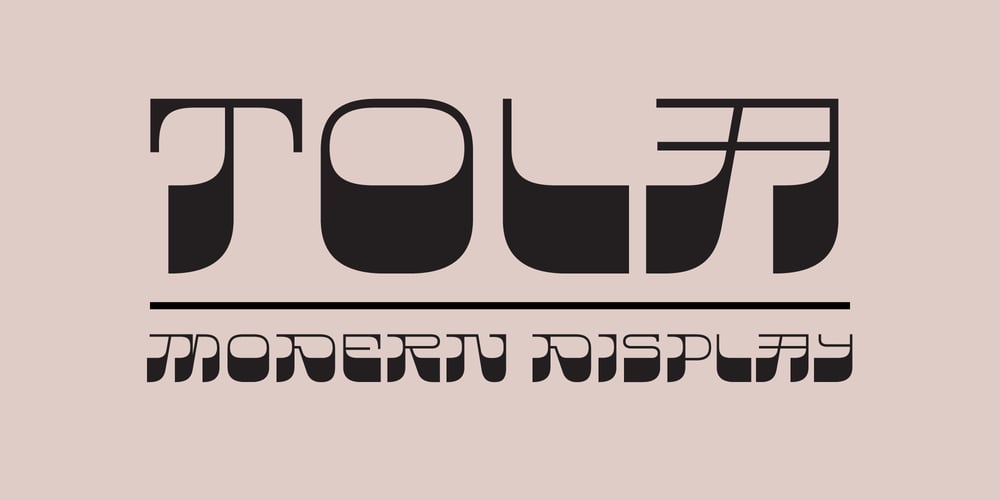
Tola
Tola font
Tola Font Family was designed by Agnieszka Olszewska and published by Agnieszka Ewa Olszewska. Tola contains 1 styles and family package options. Tola is a modern, reversed-weight, experimental display font with a spirit of the 70s. Looks better in large sizes but in smaller thanks to the thick bottom makes also interesting effect. It’s based on my letter shape experiment. I was drawing one single letter in the hope to find interesting results. I started Tola font with the letter “G” and based on that shape I created the rest of the alphabet. Tola looks good in modern graphics. It contains uppercase, numbers, and some punctuation signs, and is multilingual.Perfect for logos, posters, and social media graphics that need a super superhero with a sentimental touch.